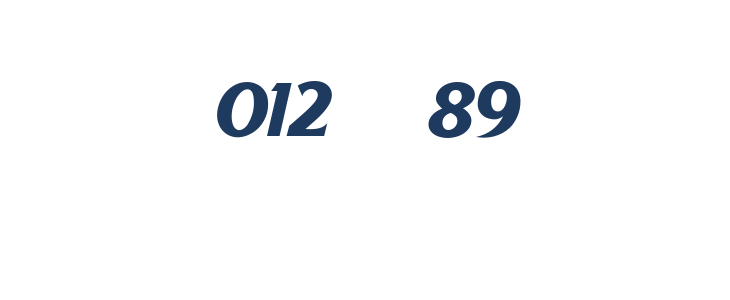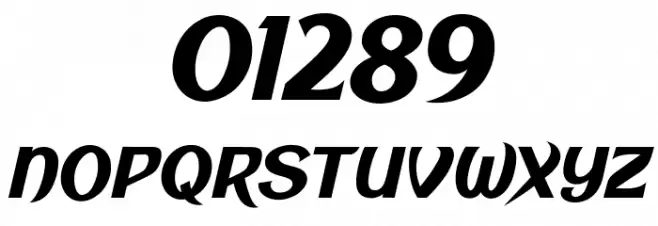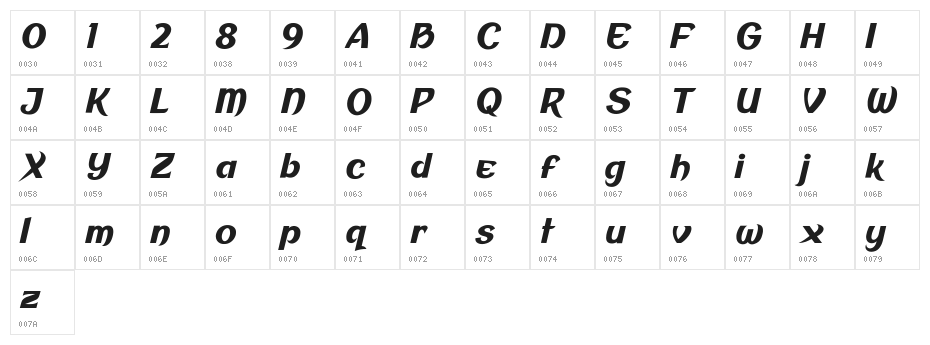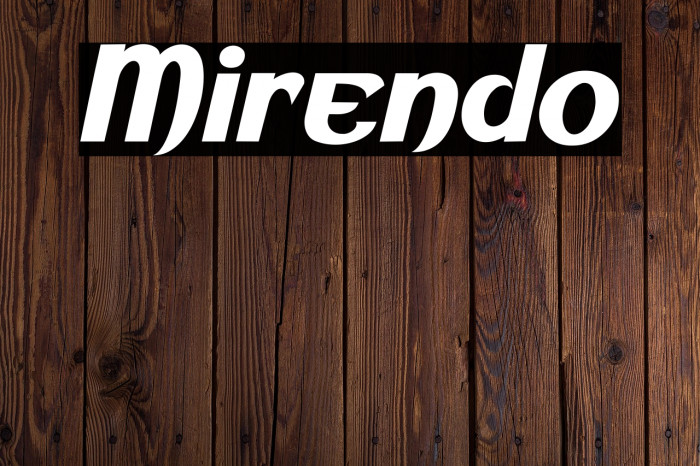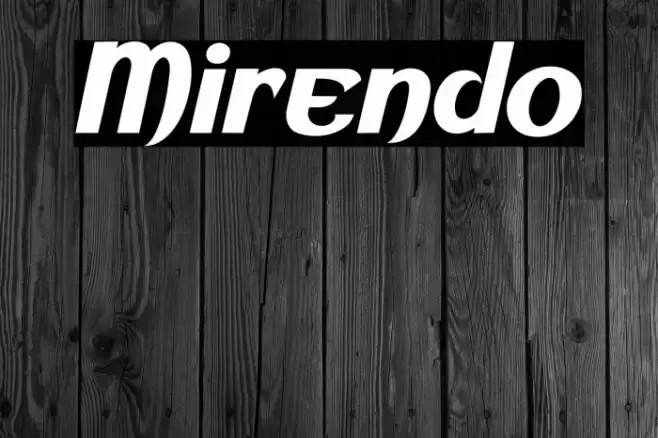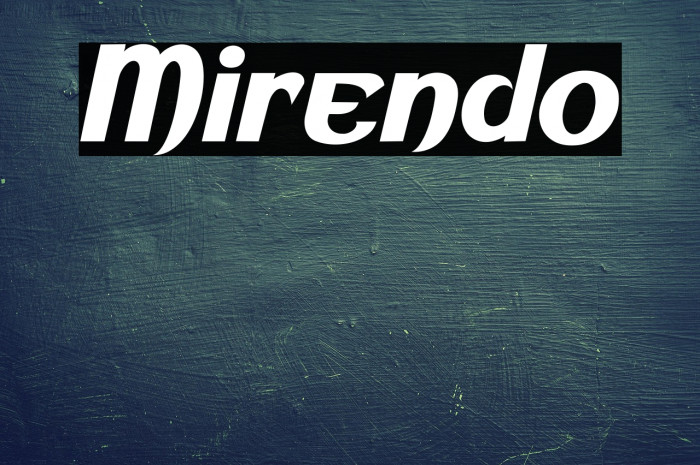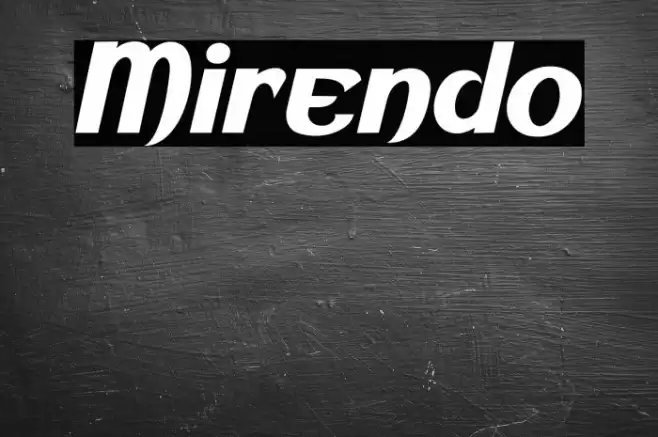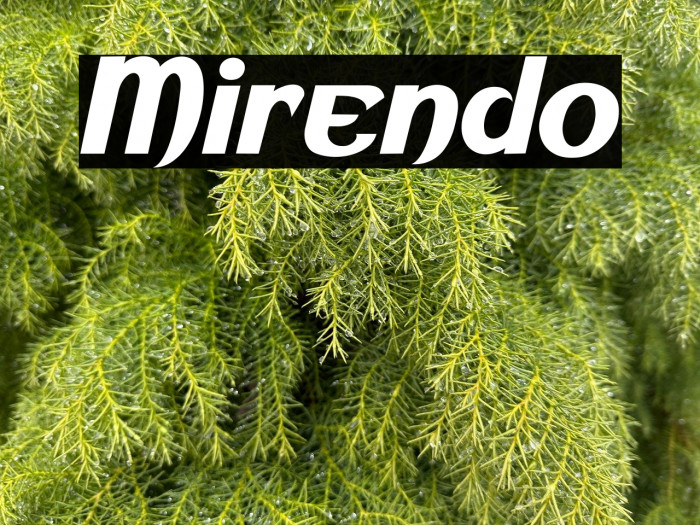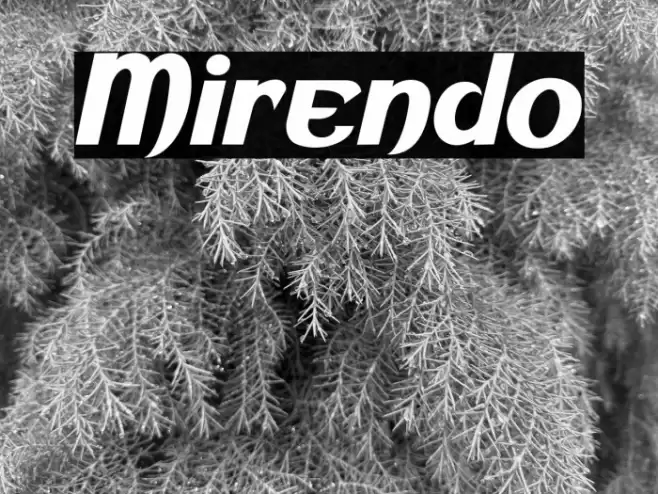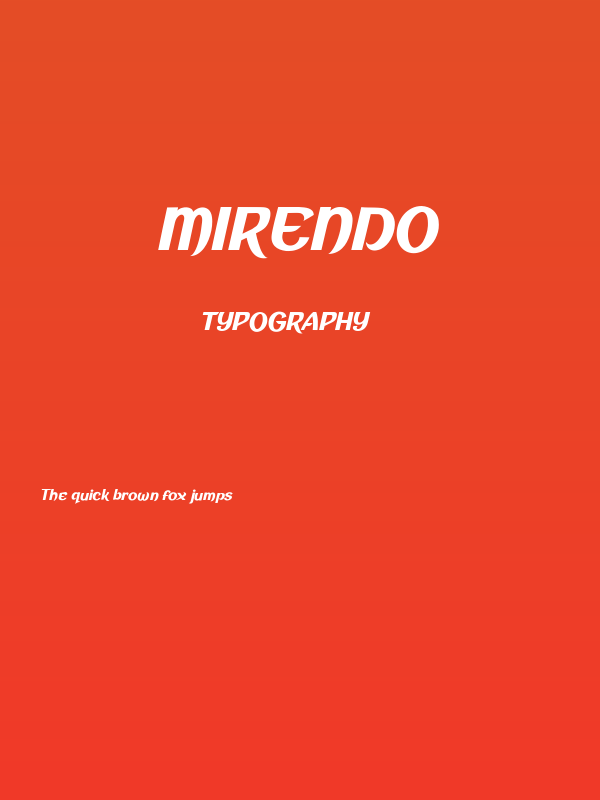
Mirendo Font
Mirendo Description
This font features a dynamic and energetic style with a slight forward slant, giving it a sense of motion and urgency. The characters are bold and have a strong presence, making them ideal for attention-grabbing headlines. The strokes are thick, providing a high contrast that enhances readability from a distance. The font has a modern flair with a touch of playfulness, evident in the unique curves and angles of the letters. The uppercase and lowercase letters maintain a consistent style, while the numerals are bold and clear, ensuring they stand out. This font is versatile, suitable for various creative projects that require a bold and modern aesthetic.
| Proposed Projects | Ideal for branding, advertising, posters, and headlines that need to capture attention. |